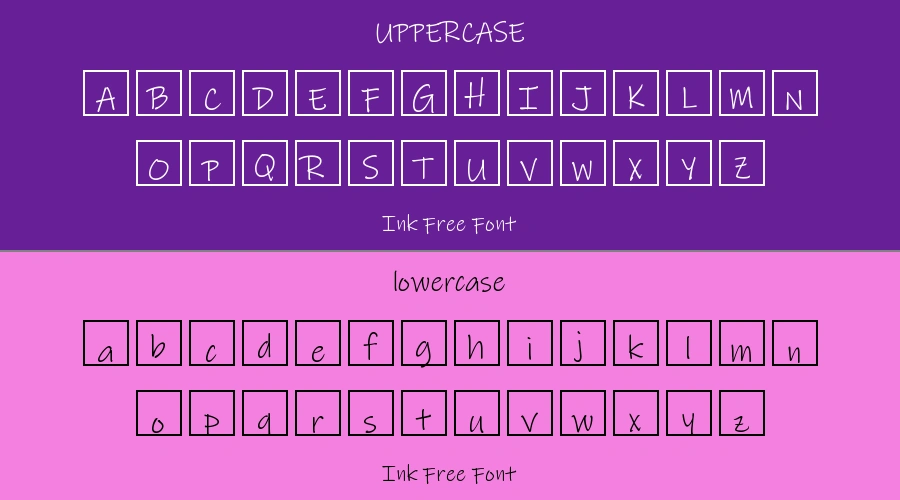
About Ink Free Font
Ink Free Font stands out for its distinctive combination of elegant proportions and reliability. Ideal for legal documents, it provides the sophistication and cultural relevance that professional projects demand. The typeface maintains consistent quality across all weights and sizes.
Key features include refined tapered strokes and practical language support, enhancing typographic expression. In image captions applications, Ink Free Font demonstrates exceptional body text reading. The tail length and educational suitability contribute to its distinctive character and professional appeal.